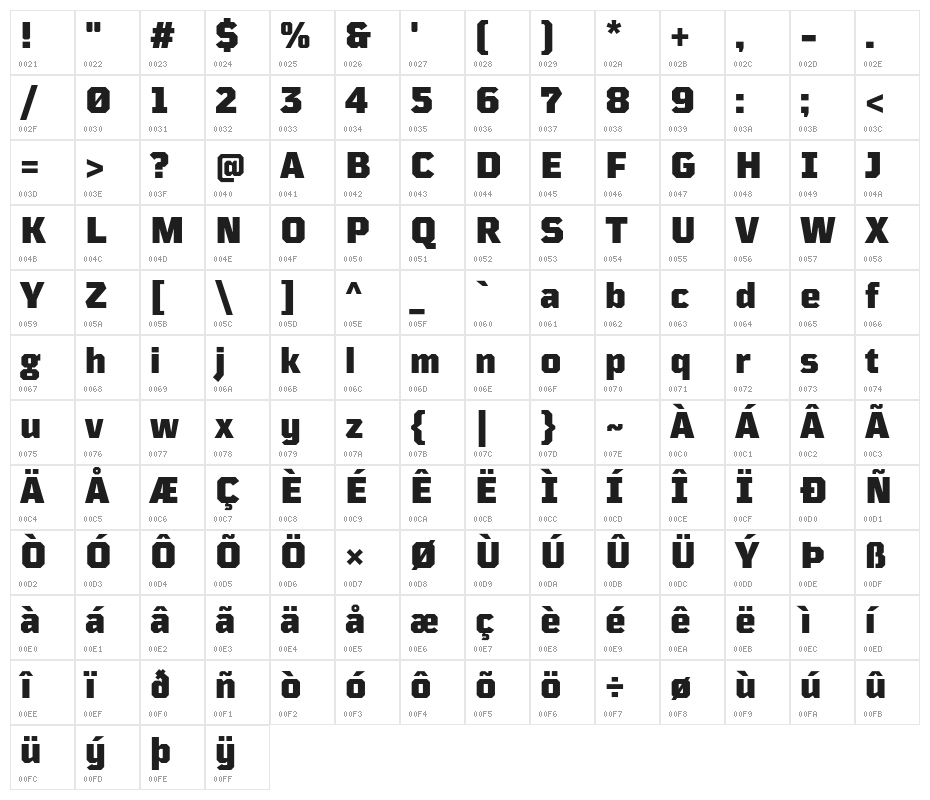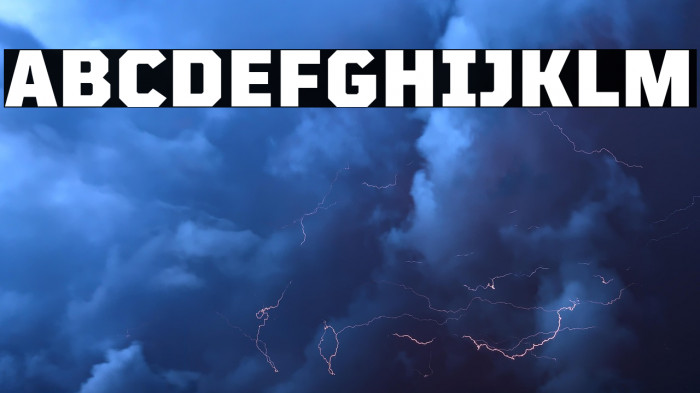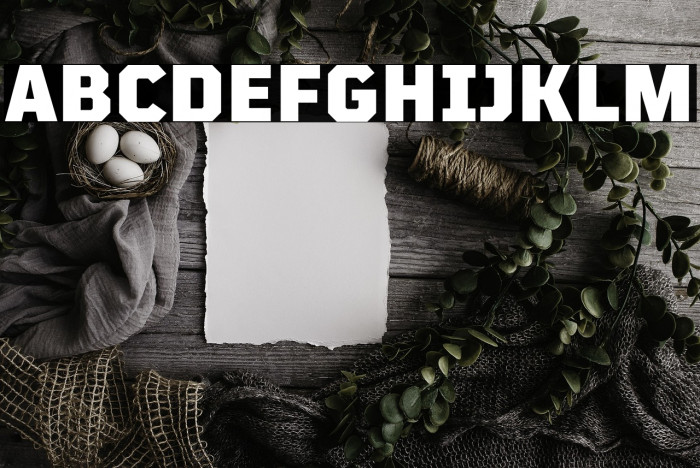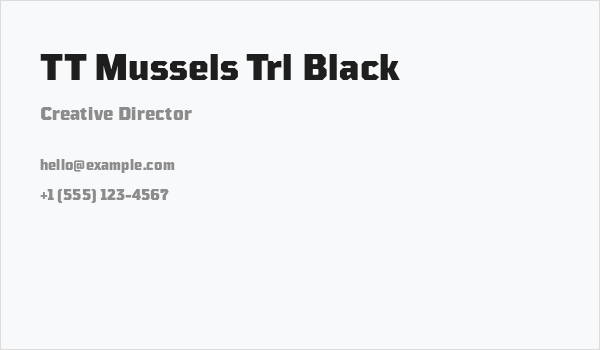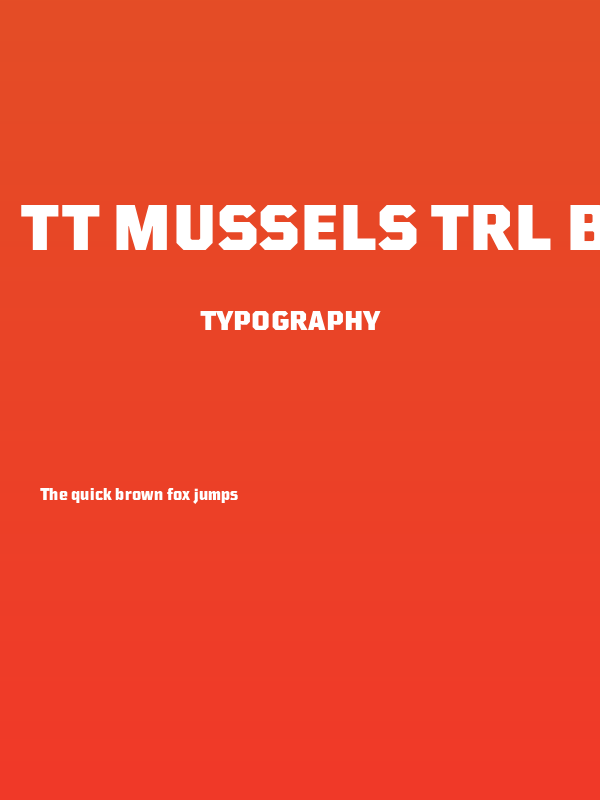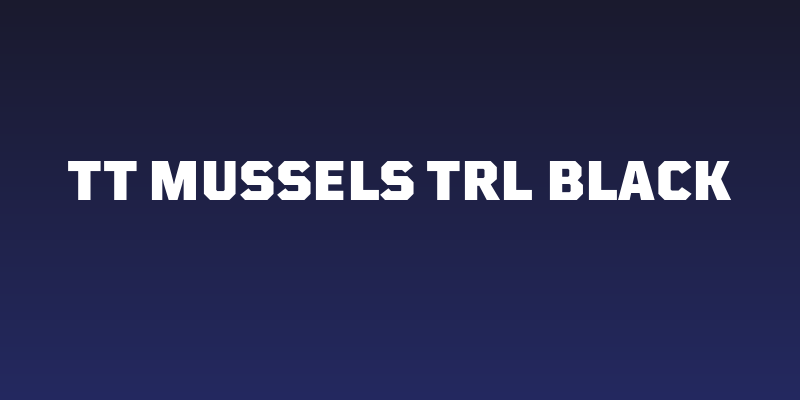
TT Mussels Trl Black Font
TT Mussels Trl Black Description
This font features a bold and impactful design with strong geometric shapes and a modern aesthetic. The uppercase and lowercase letters are crafted with sharp angles and a consistent stroke weight, giving it a robust and confident appearance. The numerals and special characters maintain this bold style, ensuring uniformity across all glyphs. The font's design is suitable for making a strong visual statement, with its thick strokes and angular forms creating a sense of stability and strength.
| Proposed Projects | Ideal for branding, headlines, posters, and any project requiring a strong visual impact. |